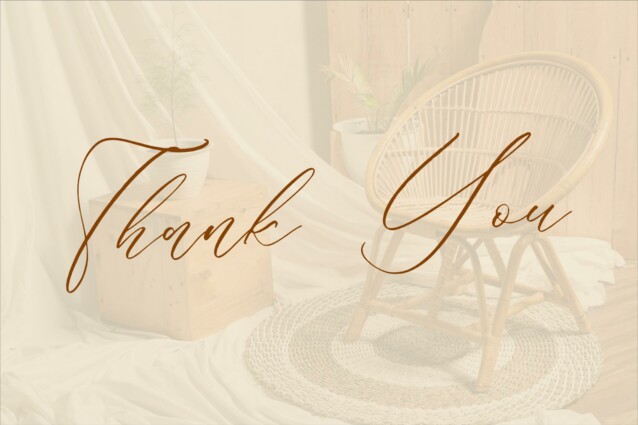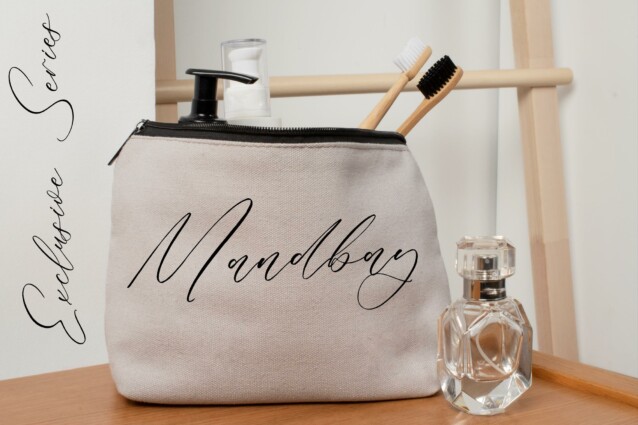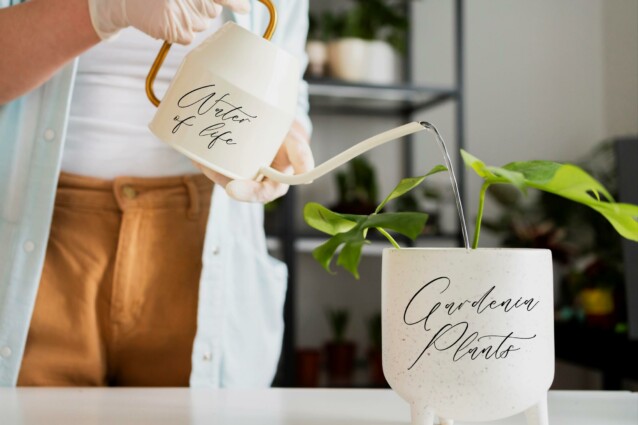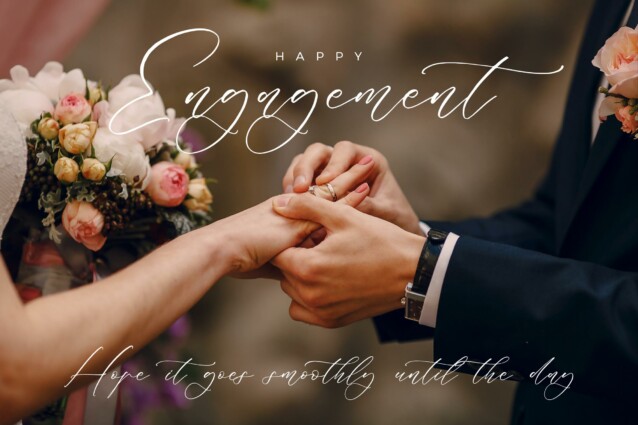
Rilenheart Scottibela Font is a luxury script that has own unique style & modern look. This typeface is perfect for an elegant & luxury logo, book or movie title design, fashion brand, magazine, clothes, lettering, quotes, and so much more.